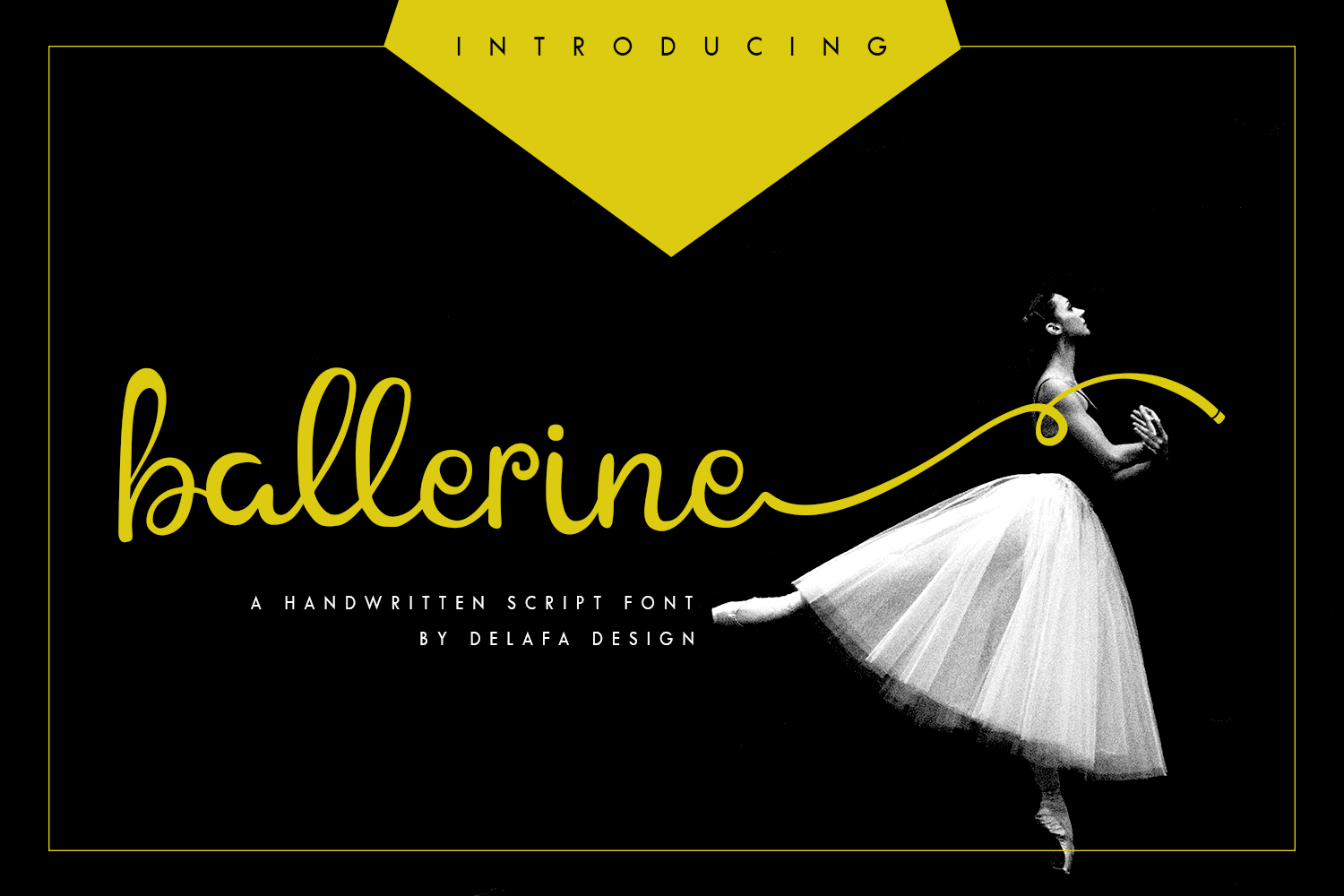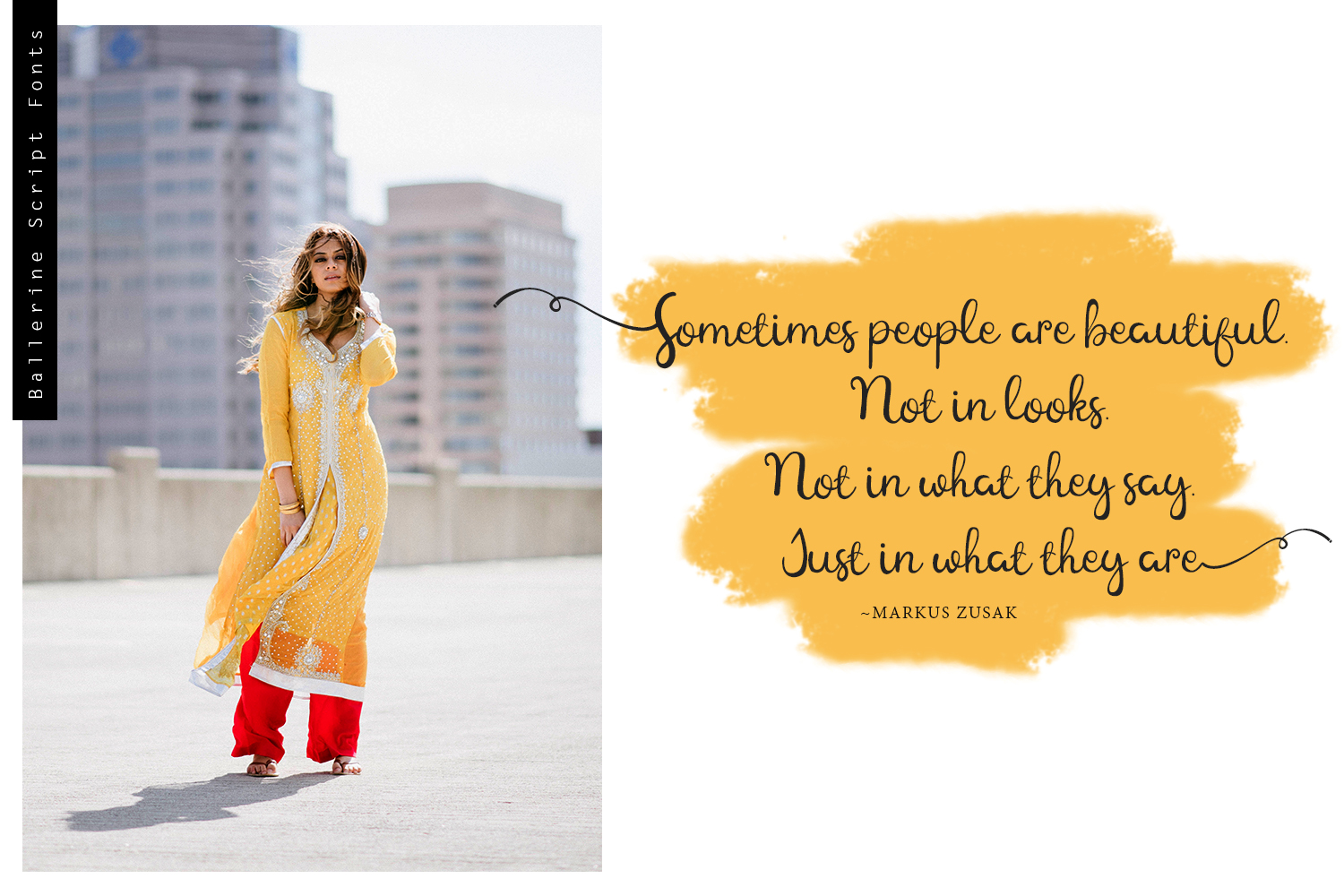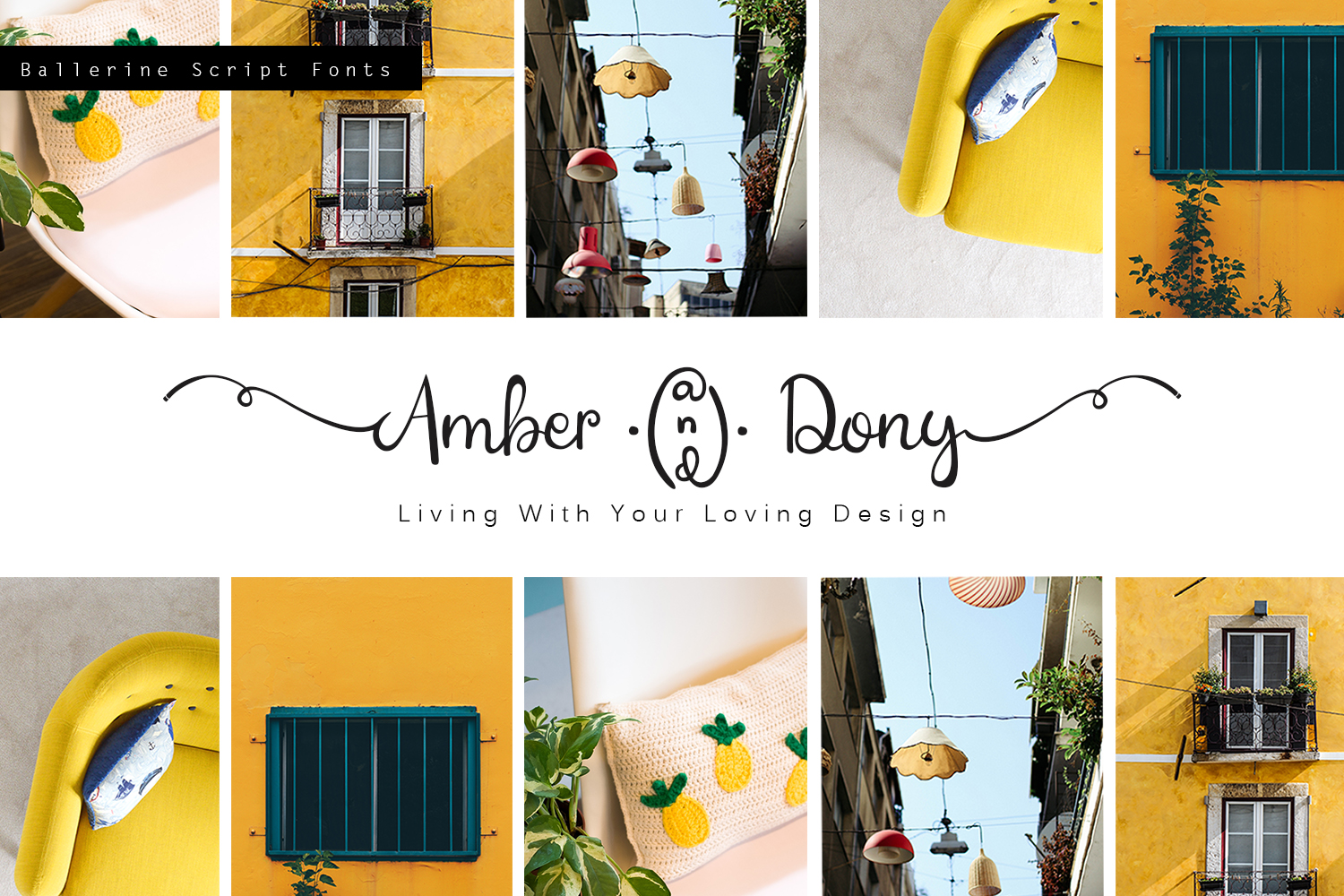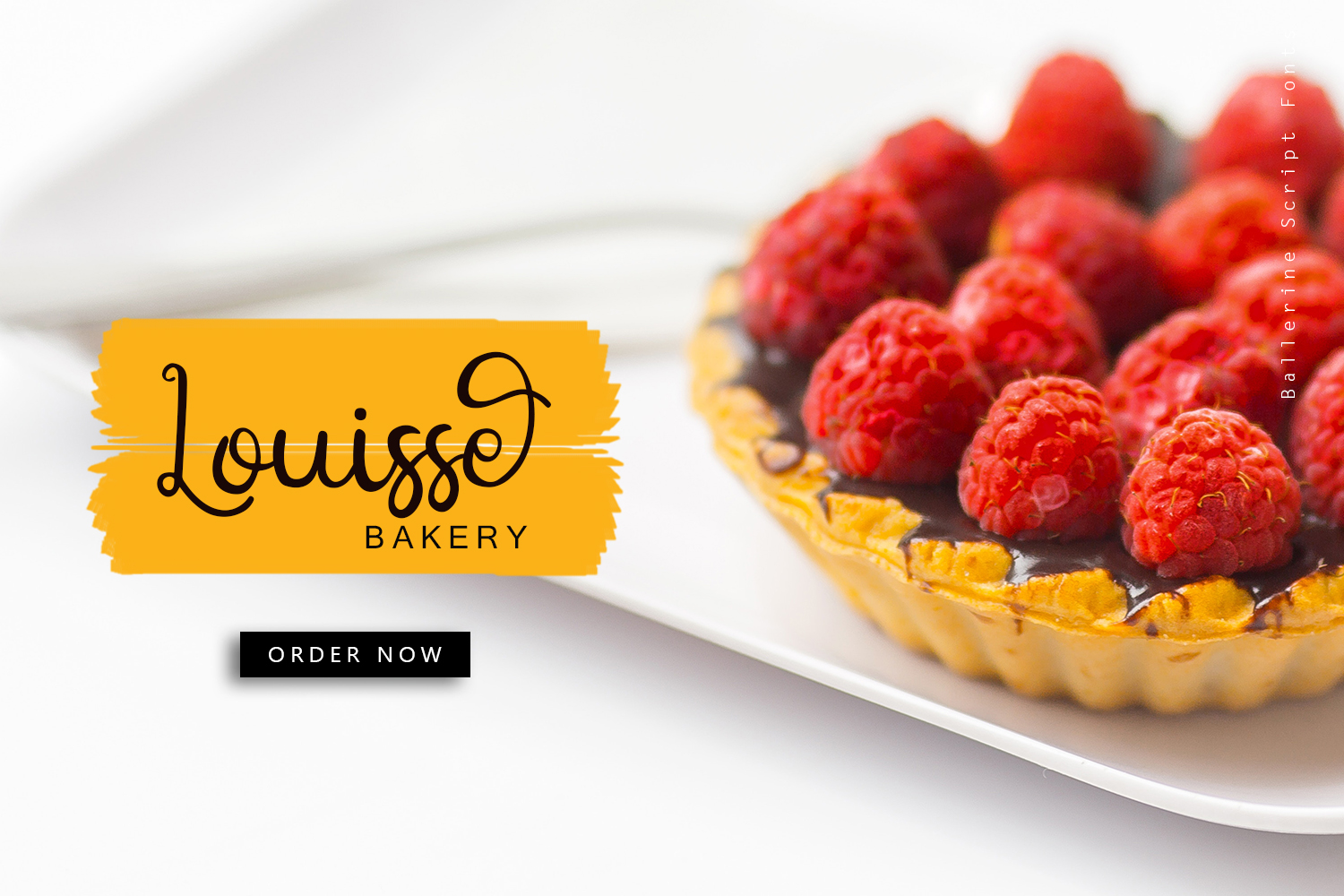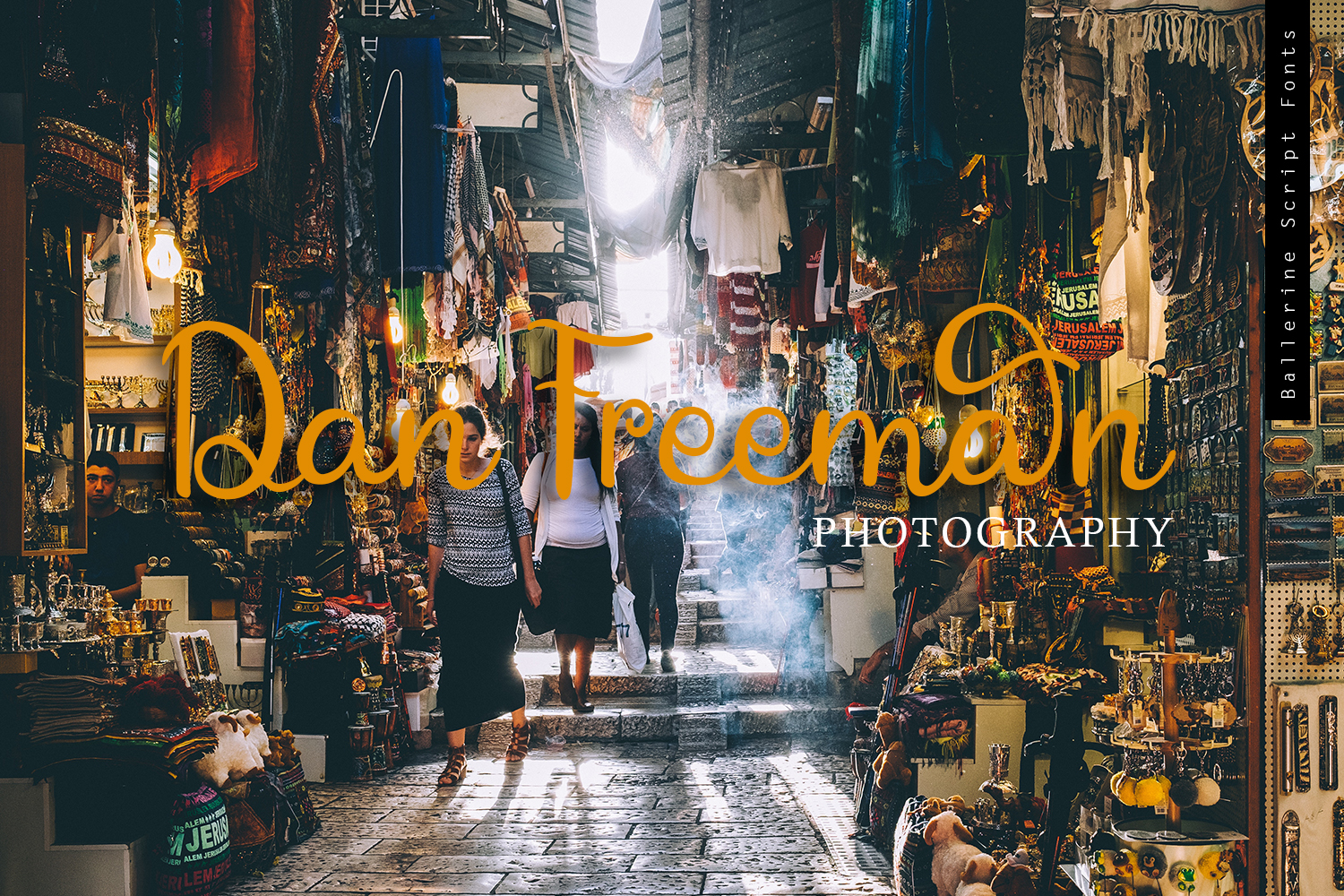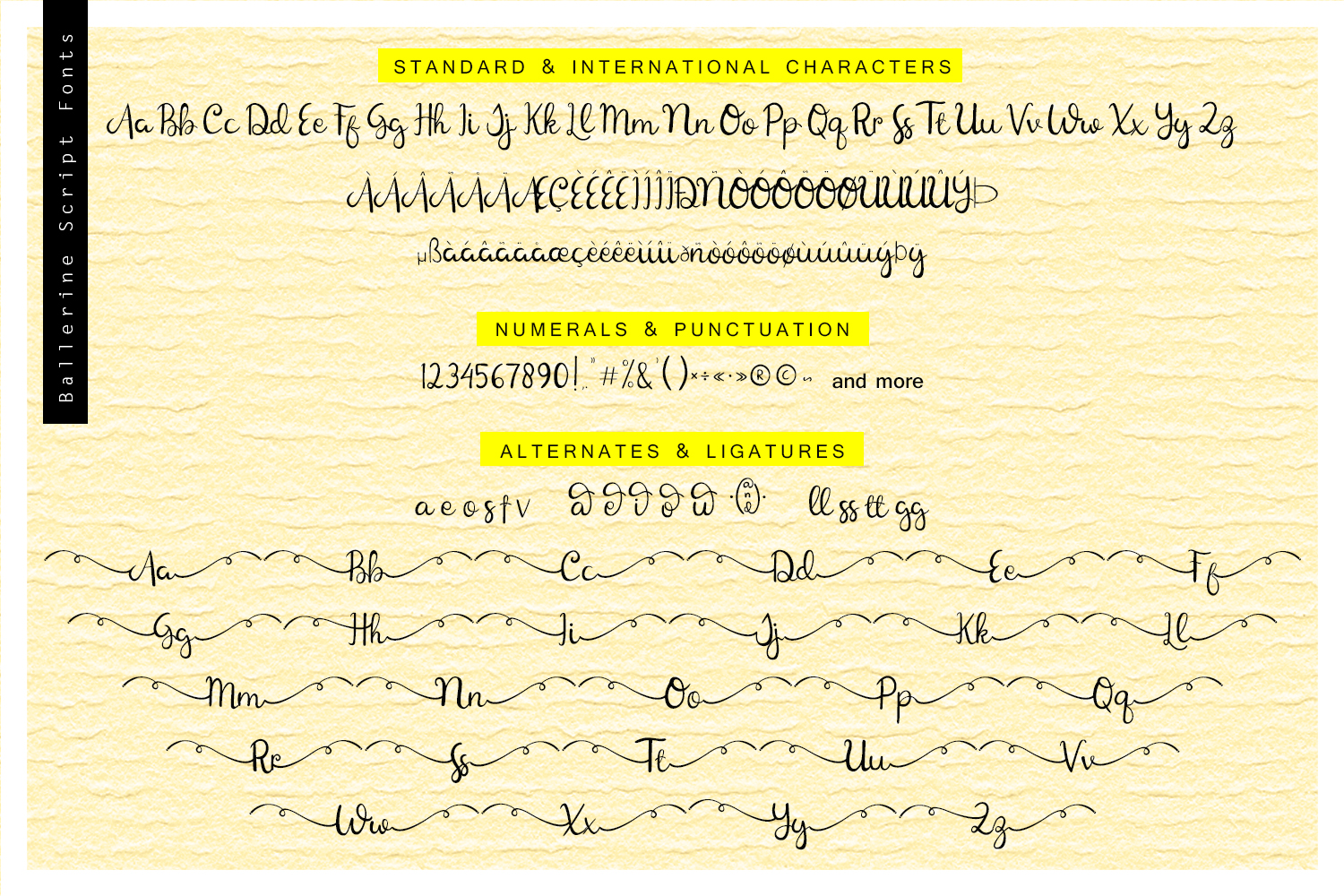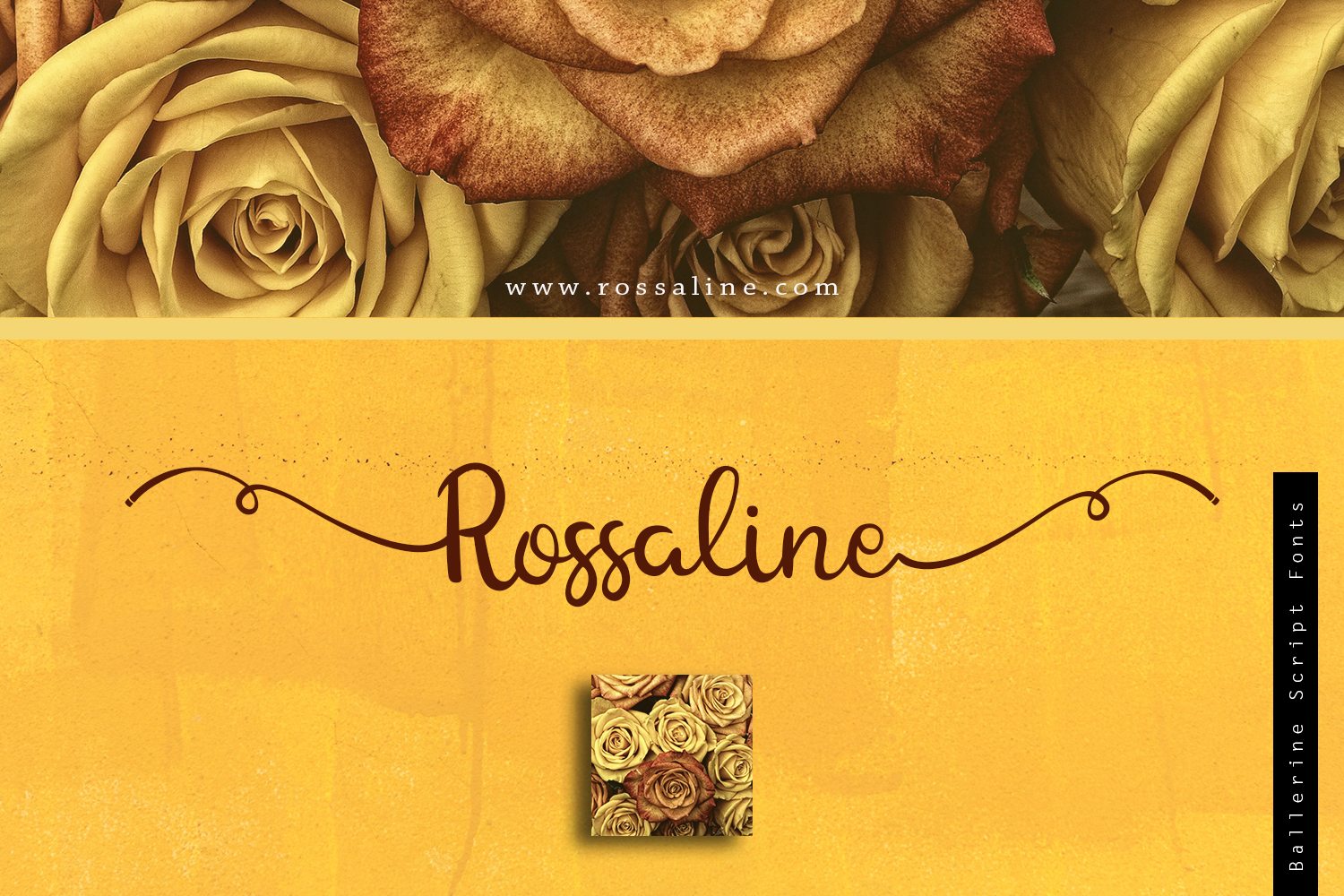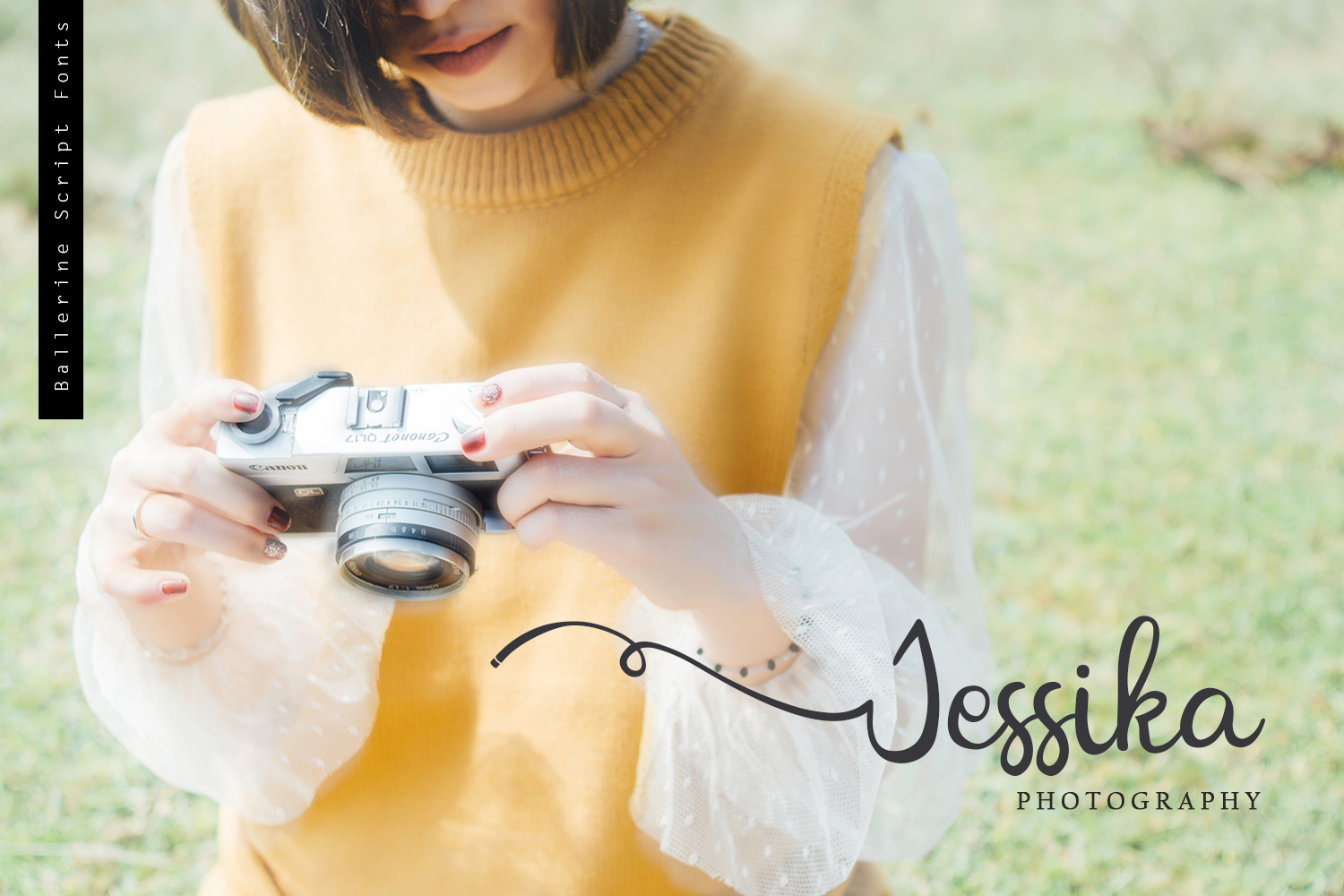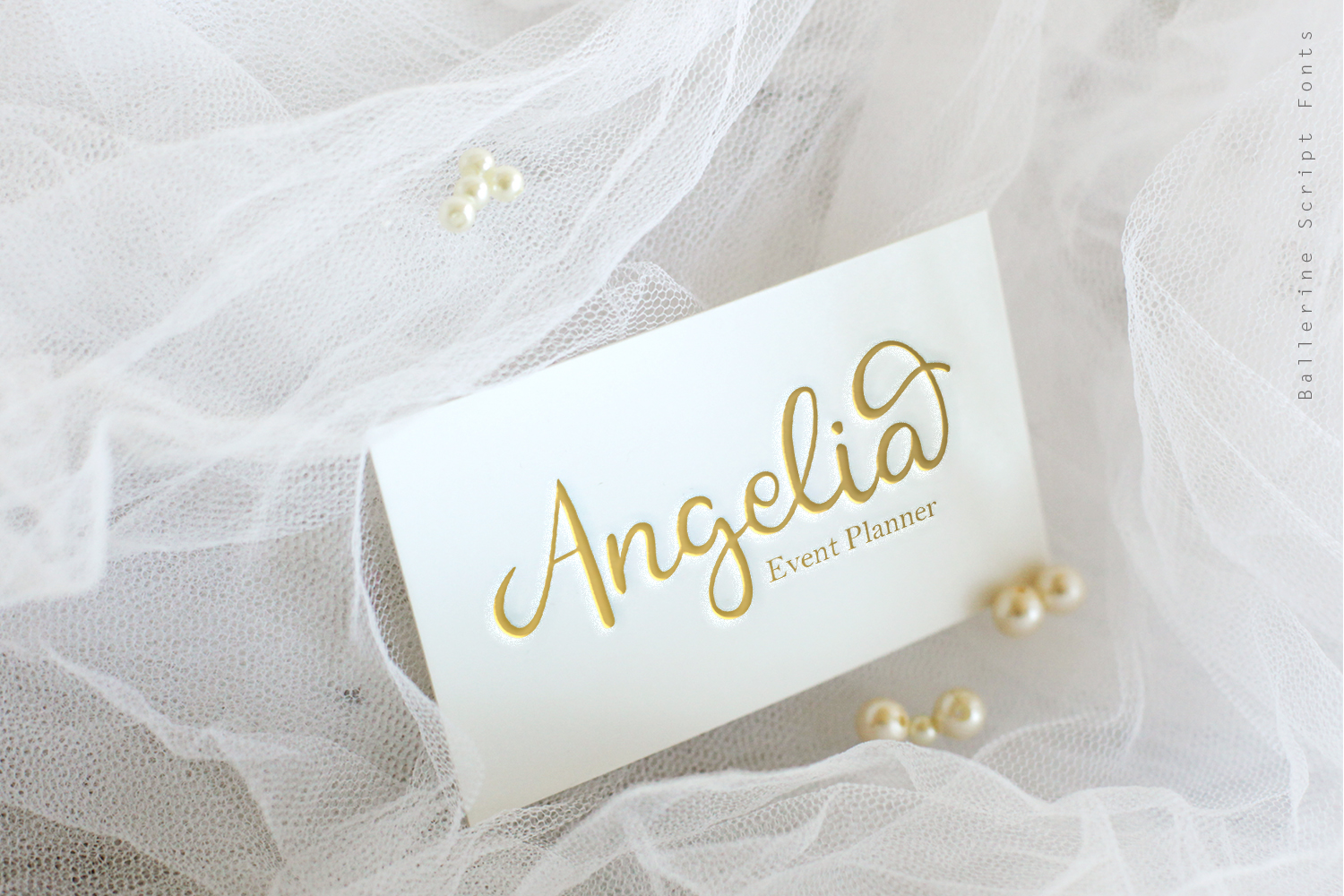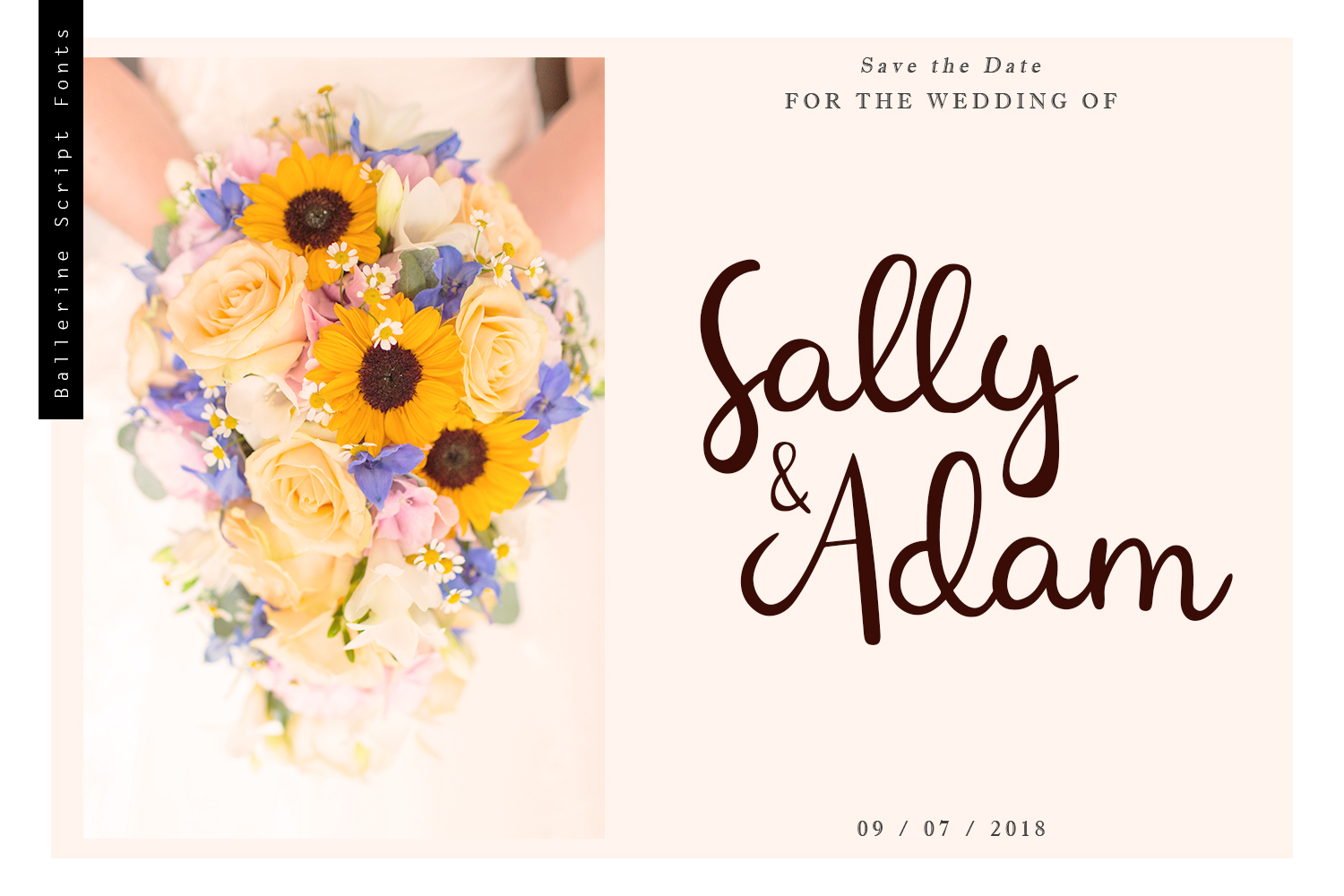
Ballerine Font
About Ballerine Font
Ballerine is a stylish and fashionable handwritten script, ideal for use in editorials and more. This is a stylish and chic font with tons of versatility.